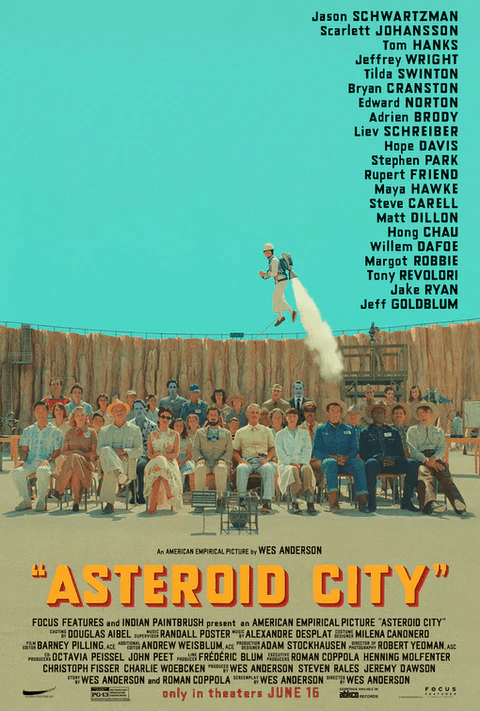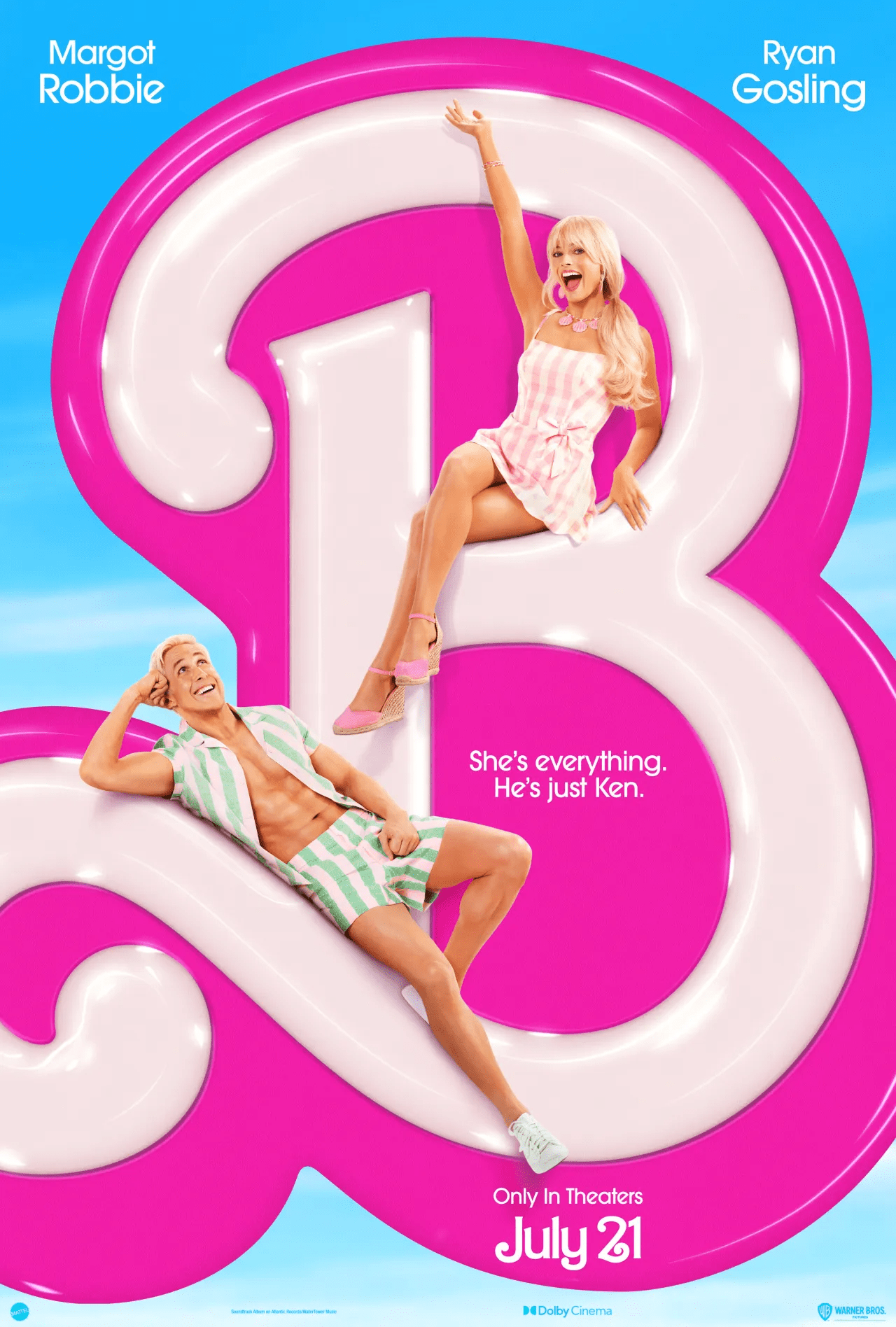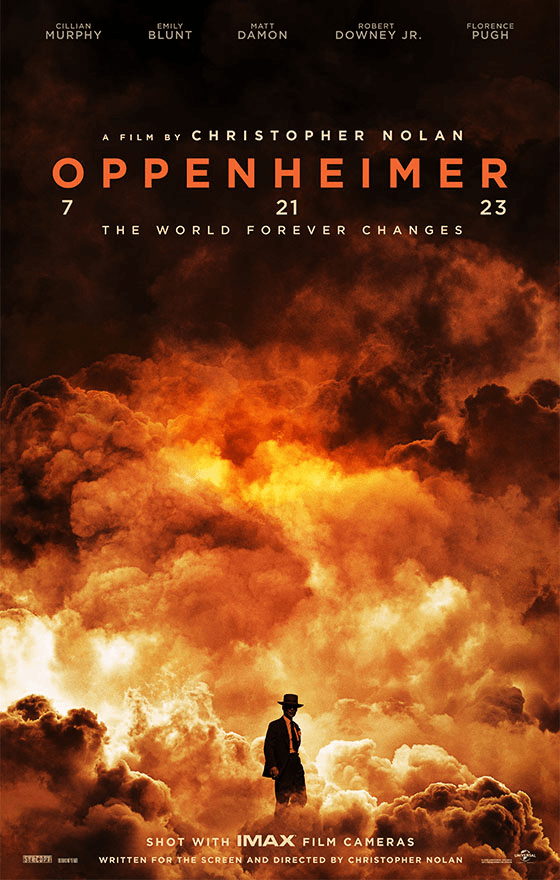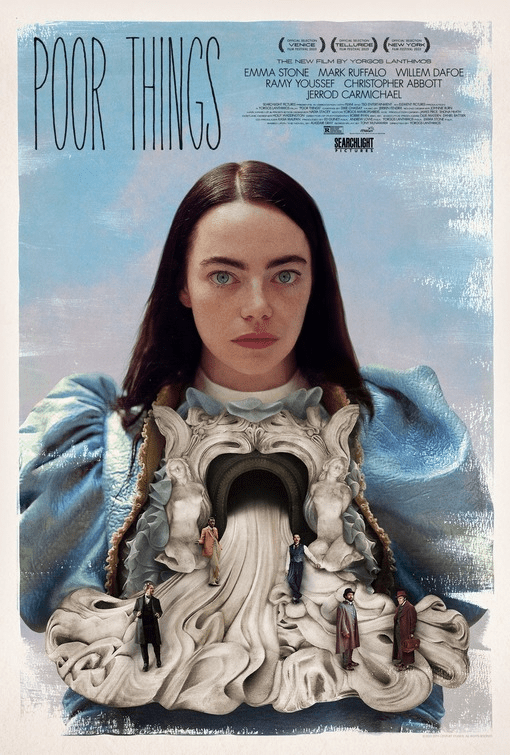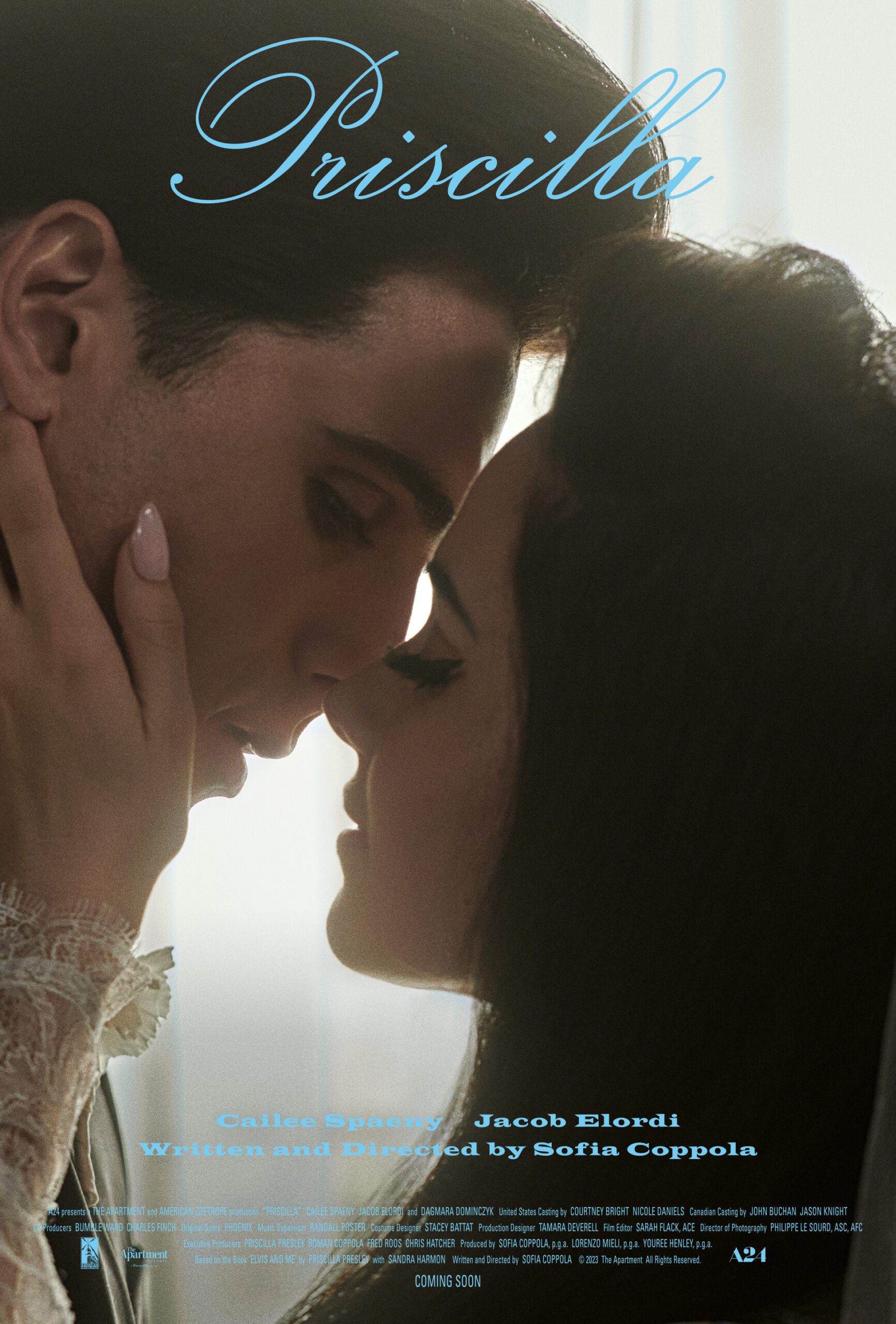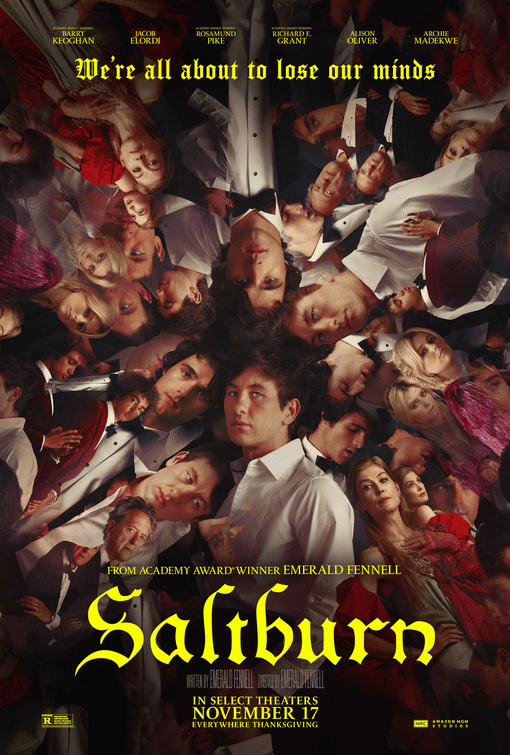
The first few months of the year mean the award season (the best of seasons) starts kicking off. Along with rooting for our favorite creators and performers, we thought of showcasing our movie poster selection, in terms of art direction, for the nominated movies in this 2024 Academy Awards. Consider this as our very own graphic design red carpet, exclusively curated for you.
1. Asteroid City
As usual, Wes Anderson has curated a specific look that makes his work memorable, and Asteroid City is no exception. Wes Anderson’s art direction and Designer Erica Dorn once again blew our minds. The font used in this poster was crafted by the graphic design team led by Erica Dorn and it works alongside a wide universe of graphic resources to create a distinctive 50’s American aesthetic. Wonderful movie poster.
2. Saltburn
Featuring a stunningly created kaleidoscope effect, Saltburn’s movie poster (directed by Emerald Fennell) makes an appropriate translation of its genre, psychological thriller, to the visual realm. The font used for the title is Salium by FG Studios, inspired in a blackletter style. The photography work for this poster was made by Sebastian Faena.
The poster is not the only astonishing aspect of this movie, the art direction is gorgeous as well as all the graphic language used around in the film.
3. Poor Things
An outstanding movie poster, for an espectacular movie. Between the unforgettable face features of actress Emma Stone and the surrealistic image composition, the Poor Things (directed by Yorgos Lanthimos) poster could easily belong in any art museum. Crafted by graphic designer Vasilis Marmatakis, the poster features the lettering work of illustrator and calligraphist Vladimir Radibratovic.
Another interesting aspect from a graphic point of view is the visual identity applied in the movie, from the intro to the chapter divisions, this characteristic communication is an excellent example of graphic design applied in the movie industry.
4. Priscilla
Priscilla (directed by Sofia Coppola) takes extreme care in how to portray time and insert the viewer in 60’s American aesthetics, and its poster is no exception. The delicate calligraphic main font is Altesse by Jean François Porchez, released by Typofonderie. The secondary font is Latin Wide, designed by Stephenson Blakev in 1883, which was very common in the 50’s and 60’s album cover design industry.
5. The Pigeon Tunnel
This expressive movie poster created for the Apple TV+ documentary The Pigeon Tunnel (directed by Errol Morries) was made by graphic designer Matt Wiley. It features a cut-out monochromatic collage composition with an intriguing detail: the background made out of Morse code.
6. Barbie
Beyond clearly being the biggest blockbuster of 2023, Barbie (directed by Greta Gerwig) created a cultural phenomenon that made everyone reach into the back of their closets for pink clothing. The poster makes a giant homage to Barbie’s 1975 logotype featuring their most iconic character, the B, as a platform to showcase the starring actors. Fabulously typographic.
The movie poster screams “Hollywood”, but it’s overall interesting how the graphic aspects of this historic brand were put into action, not only in the poster but in the whole universe of the movie from an art direction point of view.
7. Oppenheimer
In total contrast to Barbie and sharing the same release date (creating the famous Barbenheimer trend), Oppenheimer (directed by Christopher Nolan) features Gotham Bold as the title font, and the silhouette of Cillian Murphy, dressed as his character, contrasts with the smokey textures of the nuclear bomb. A subtle and recognizable visual resource. A more “classic” approach in terms of graphic design, but nevertheless interesting. This movie poster didn’t have the first place in our hearts, but it did won best movie of 2024. Bravo to the team!